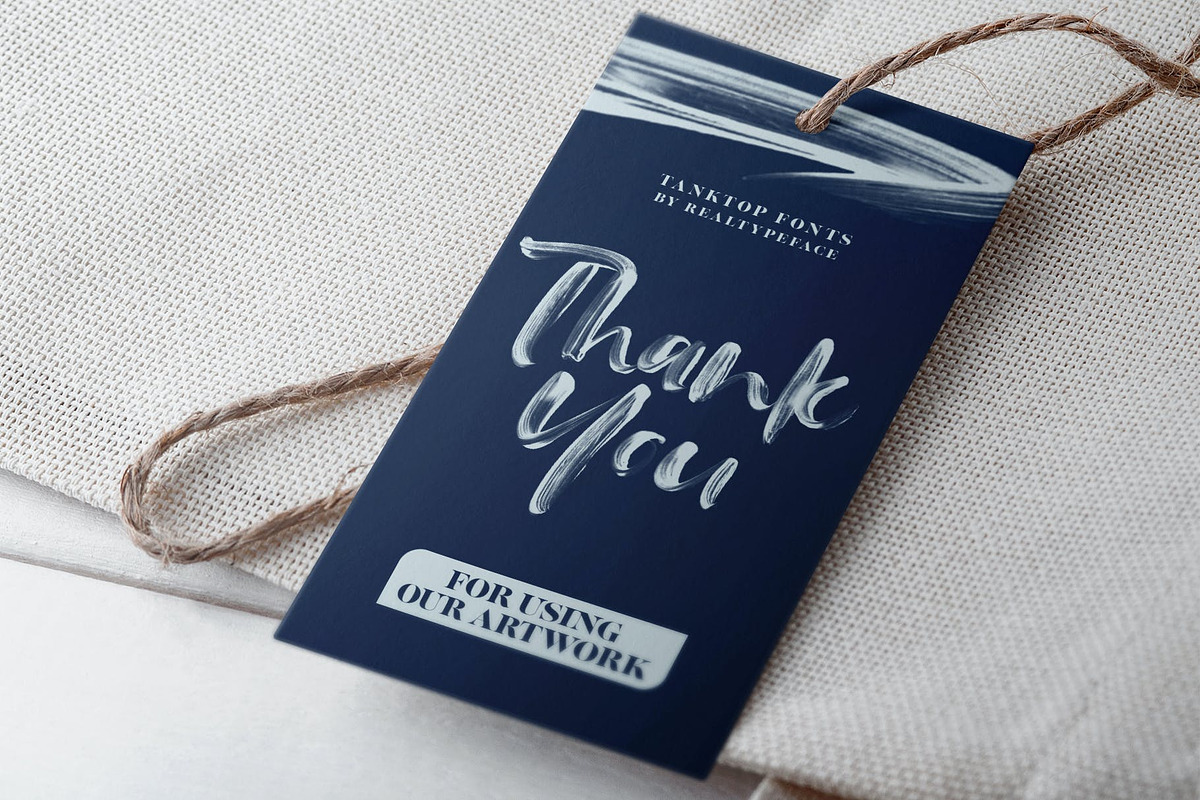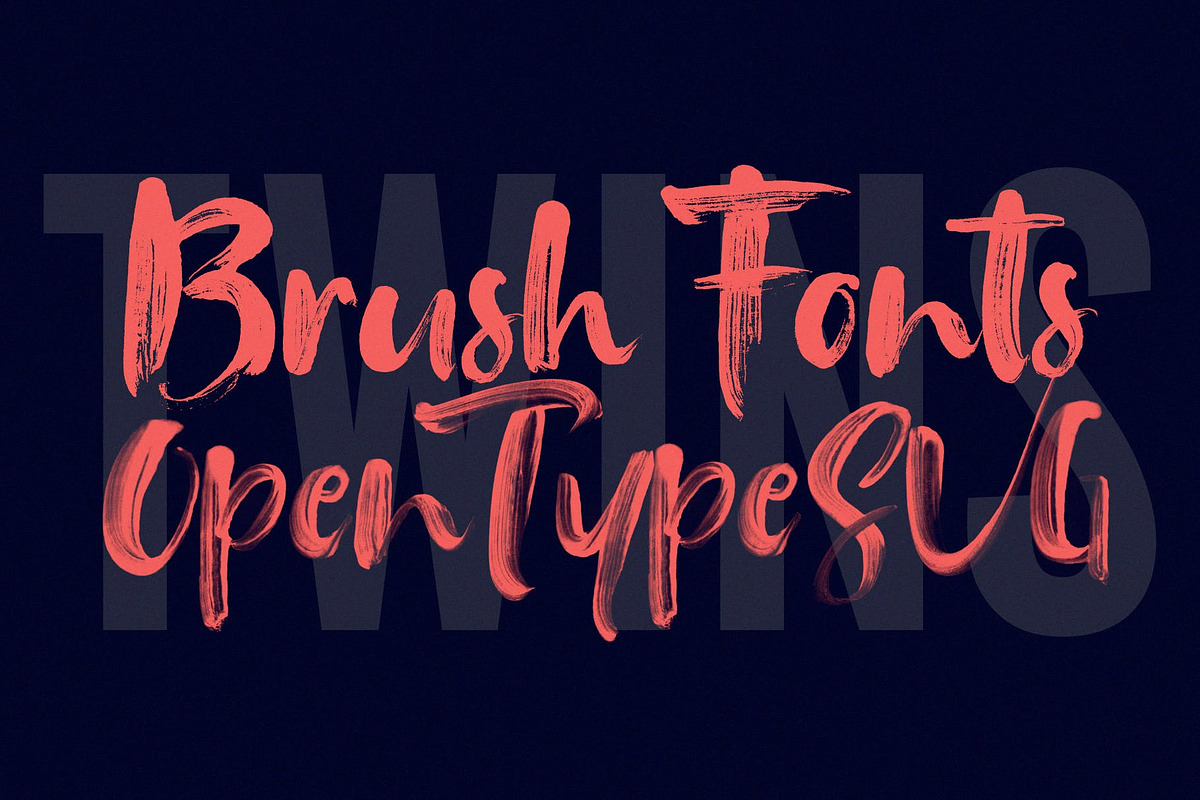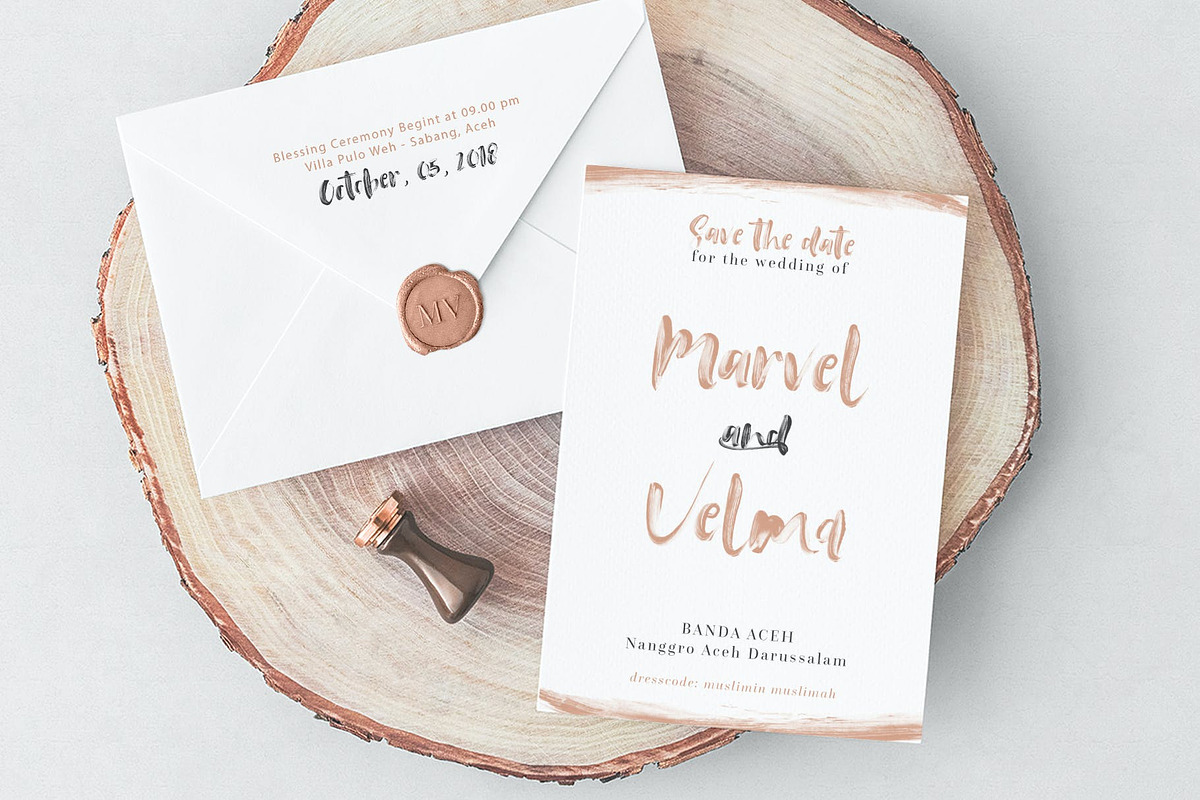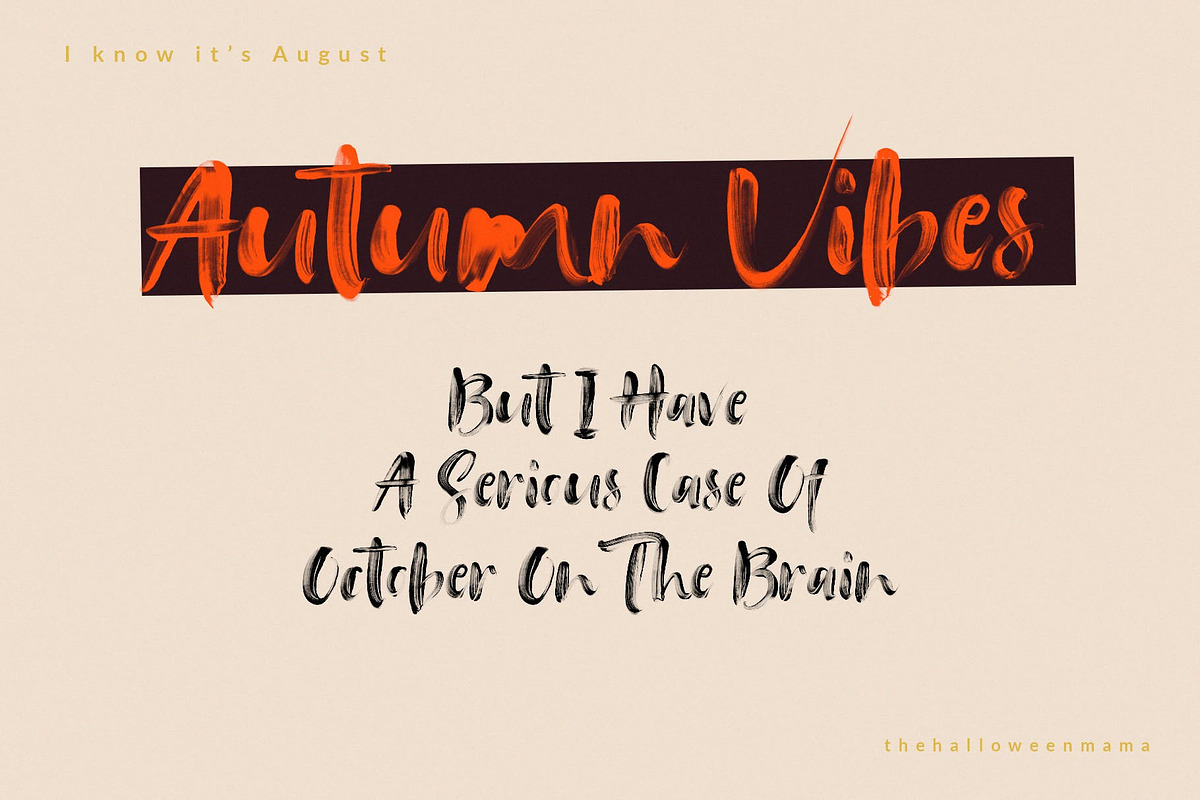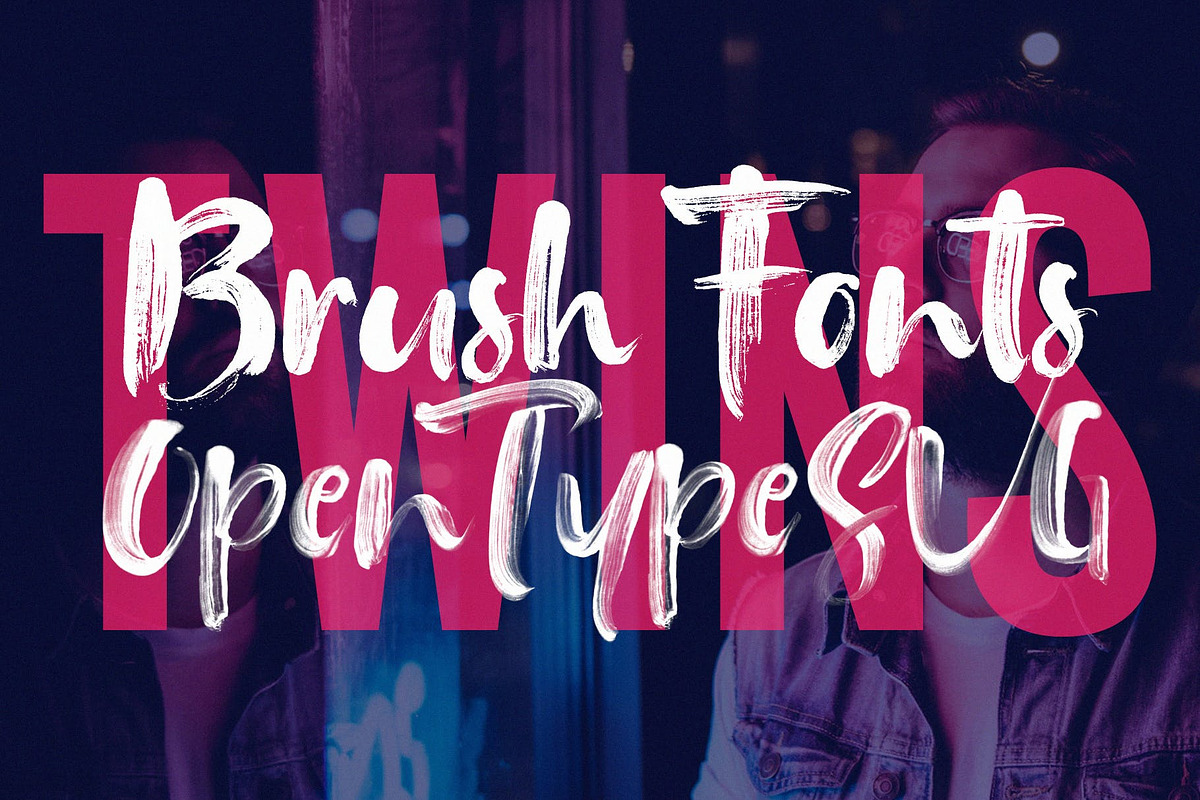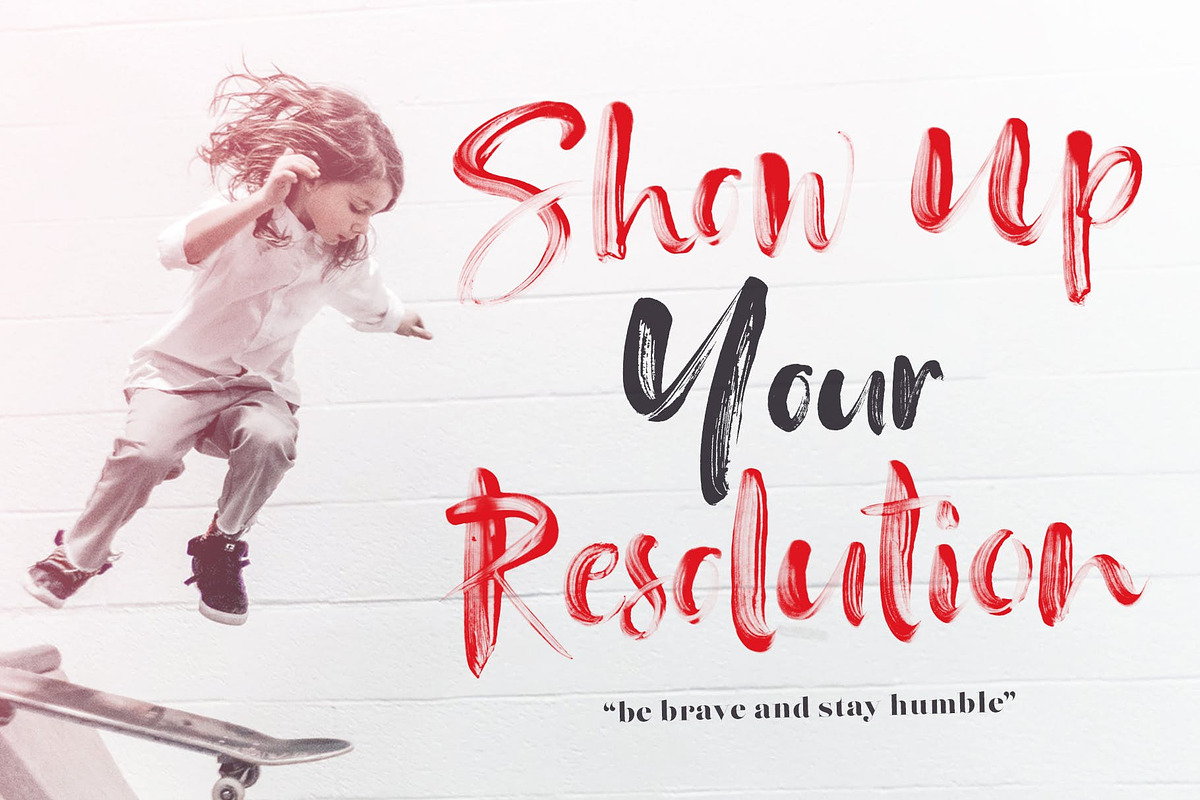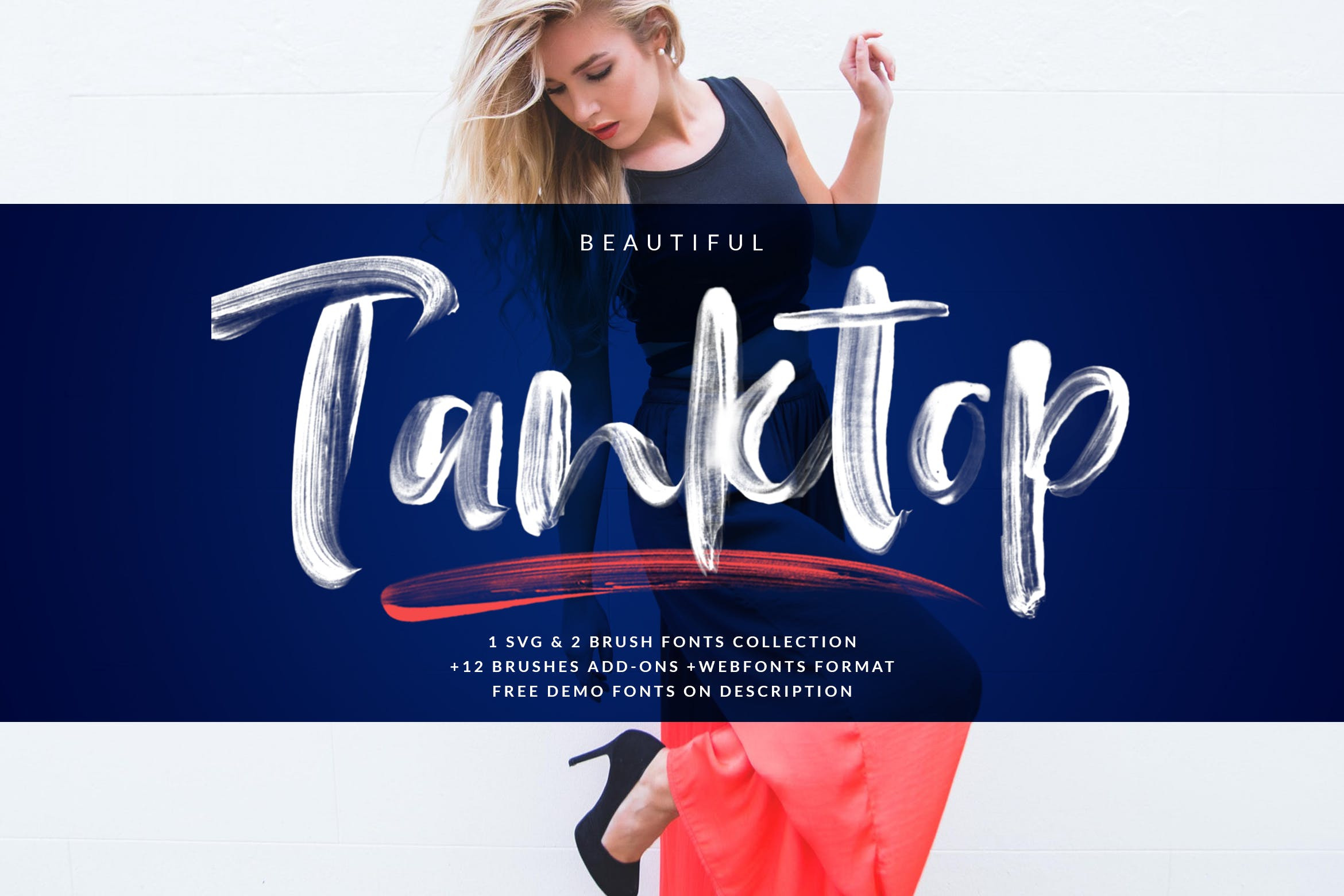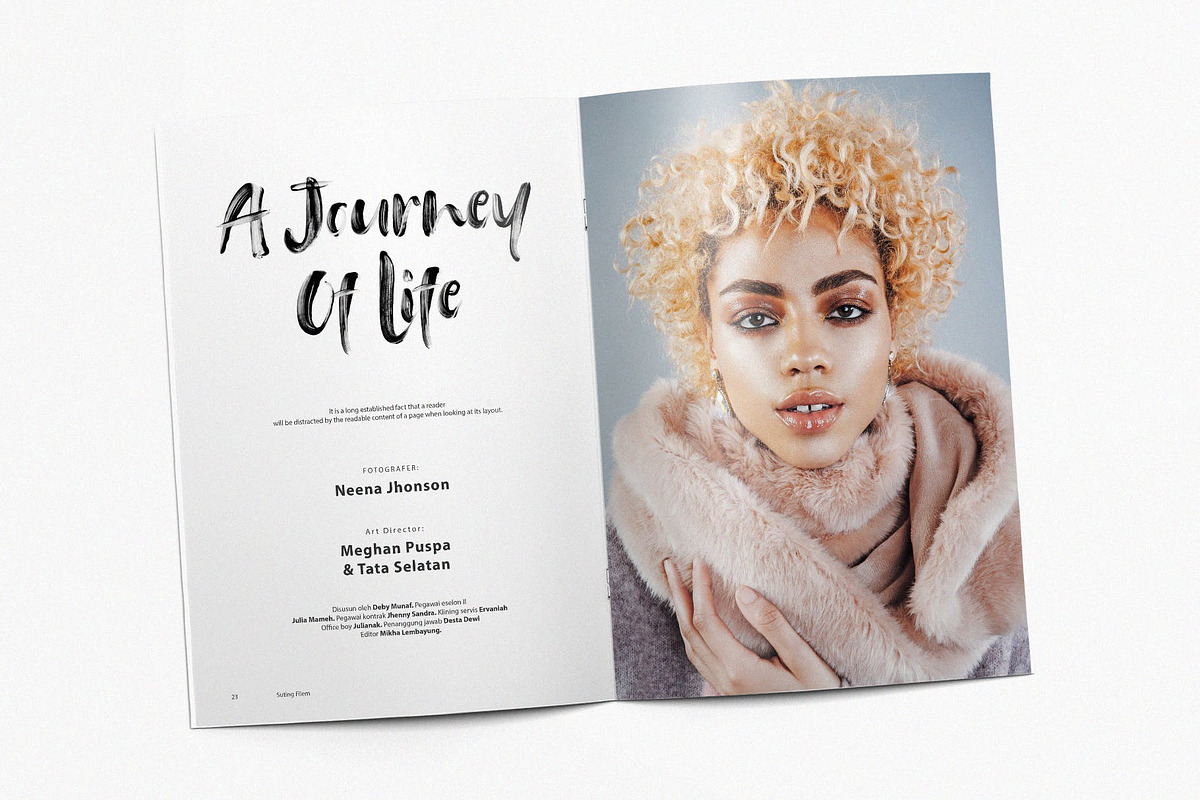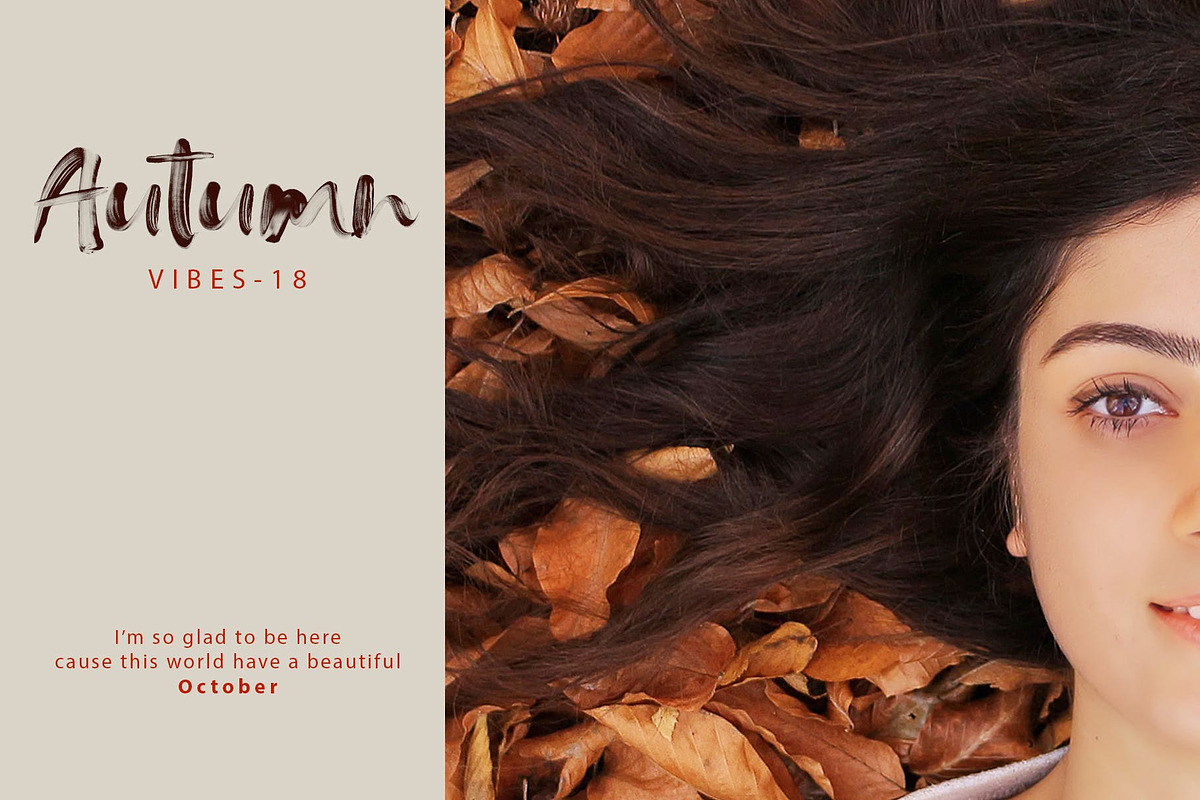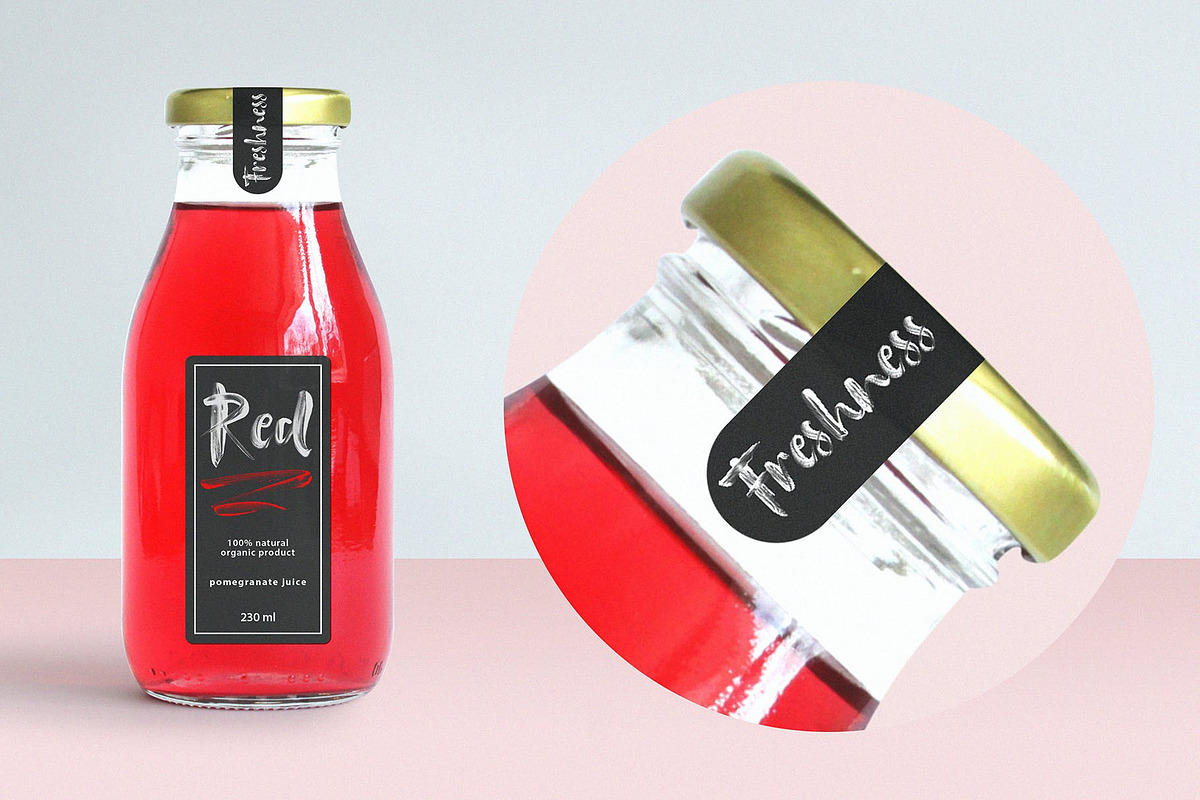
Tanktop Brush & SVG Fonts
Tanktop OpenType SVG Fonts are done with high resolution scanning results. Likewise with Tank Top Brush Fonts, high quality scanning and I do tracing manually to get the desired texture